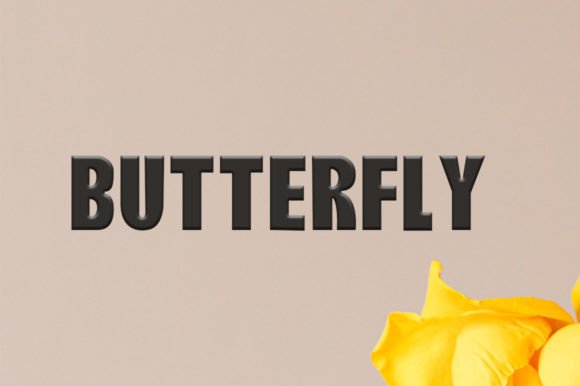
The Butterfly Effect: How a Classic Sans Serif Font Can Elevate Your Designs
I’ll never forget the time I was working on a logo design project for a new client, a trendy boutique hotel. I had spent hours brainstorming ideas, sketching out concepts, and refining my designs. But as I sat staring at my computer screen, I couldn’t shake the feeling that something was missing. That’s when I realized: I needed a font that would make my design pop. After scouring the internet and trying out countless fonts, I stumbled upon Butterfly – a classic sans serif font that would become the perfect fit for my project.
An Honest Review of Butterfly Font
So, what makes Butterfly font so special? Let’s dive into the good stuff and a few quirks I’ve discovered.
• 💯 Clean and crisp design: Butterfly font has a timeless, elegant feel that’s perfect for a wide range of design projects.
• ✅ Highly versatile: From logo designs to social media graphics, movie titles to book covers, this font can do it all.
• ✨ Easy to read: Even at smaller sizes, Butterfly font remains clear and legible, making it perfect for body text or captions.
• ⚠️ Limited OpenType features: Compared to some other fonts, Butterfly has relatively few OpenType features – but this also makes it easy to use and pair with other fonts.
• 🤔 Not ideal for body text: While Butterfly is great for headlines and titles, it may not be the best choice for longer blocks of text.
Butterfly font was designed with the goal of creating a clean, elegant sans serif font that would be versatile and easy to read. While the exact origins of the font are unclear, it’s likely that the designer was inspired by classic typography and a desire to create a font that would stand the test of time.
What is Butterfly font best used for? Butterfly font is great for logo designs, social media graphics, movie titles, book covers, headlines, banners, and more.
What are some common pairing fonts with Butterfly? Butterfly font pairs well with a range of fonts, including serif fonts like Georgia or Times New Roman, as well as other sans serif fonts like Open Sans or Lato.